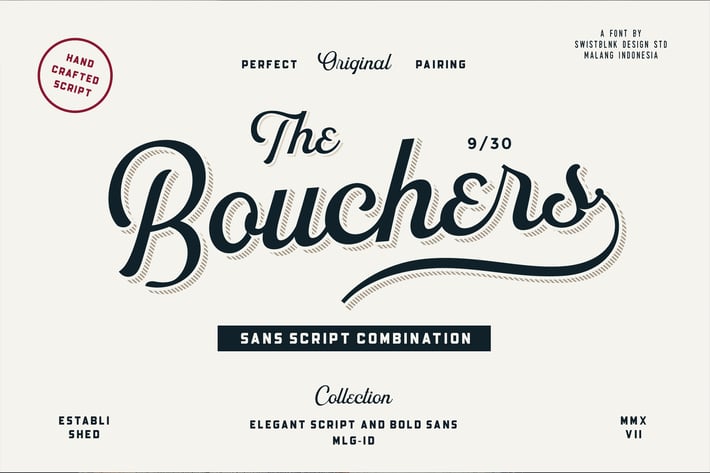
Bouchers Script Font Duo
Perfectly well together for an authentic Modern Vintage look
Bouchers Script 2.0 Features :
- Numerals & Punctuations
- Accents
- Stylistic Set 01
- Stylistic Alternates
- Swash
- Suitable for Headlines, Logotypes, Signs, Posters, Letterhead, T-Shirt and many more.